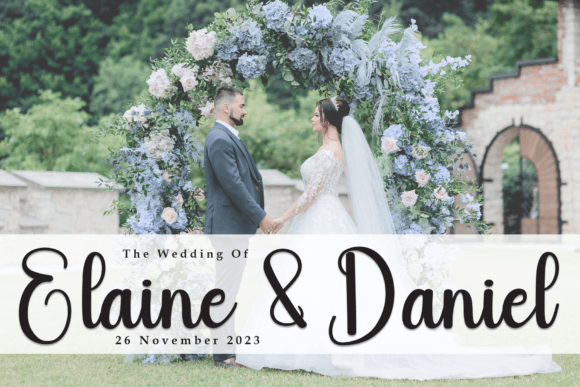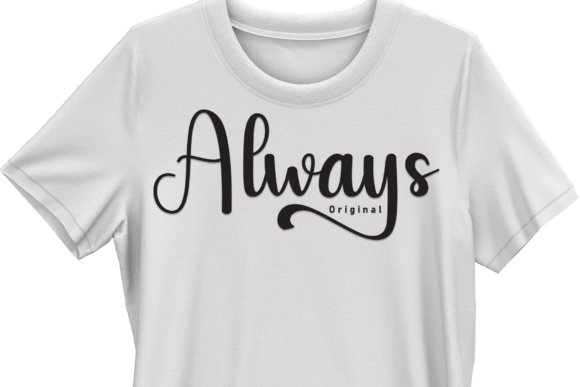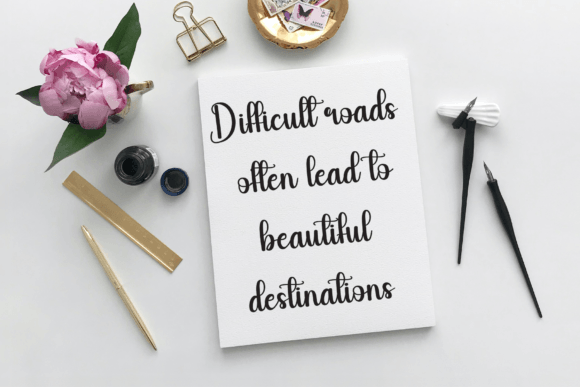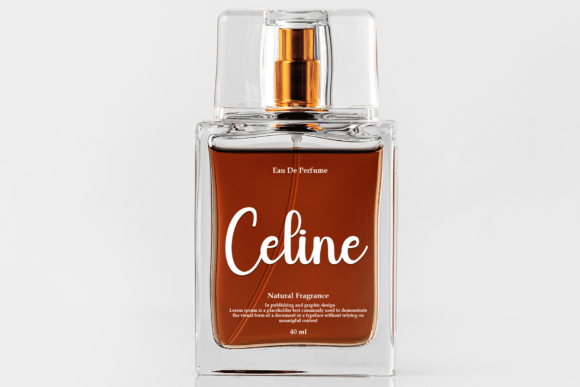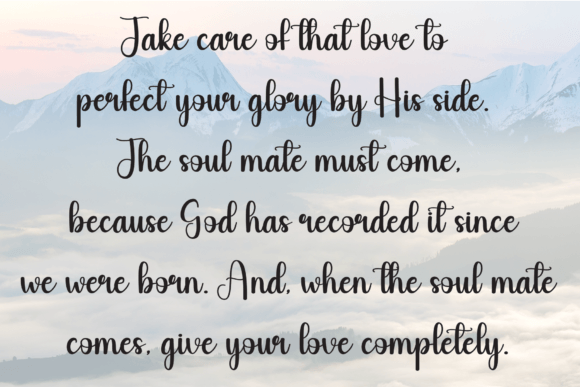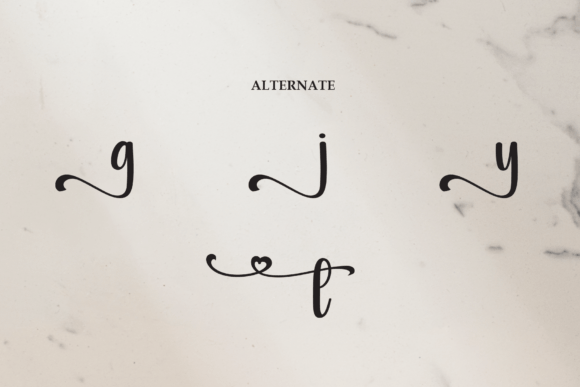
Introduction to Majority Font
Majorty is a sweet and friendly handwritten display font.
Cute and fun, this font is ideal for writing wedding invitations, cards, or any other design that might need a fun touch .
Key Features of Majority Font